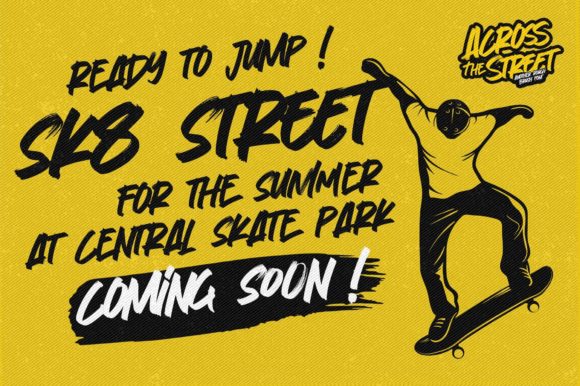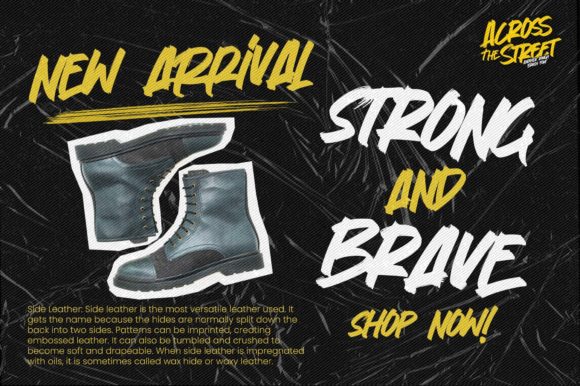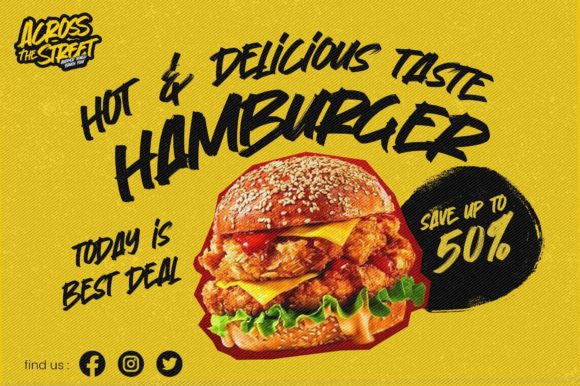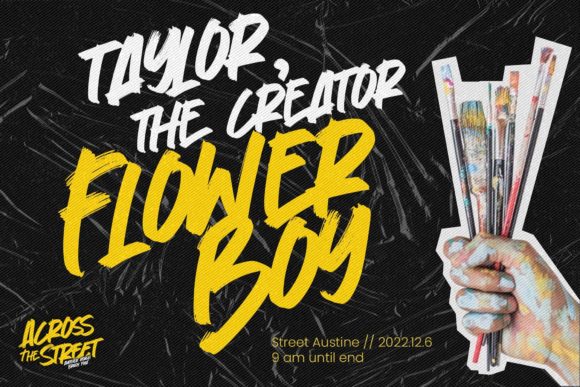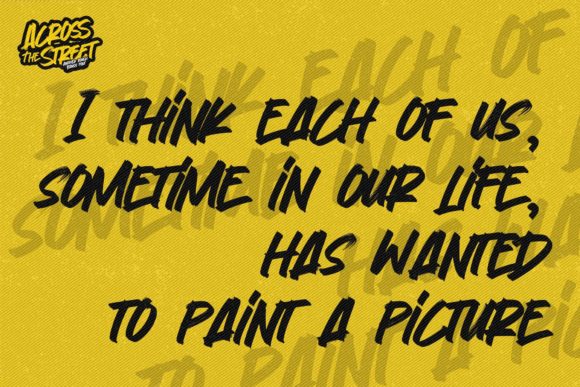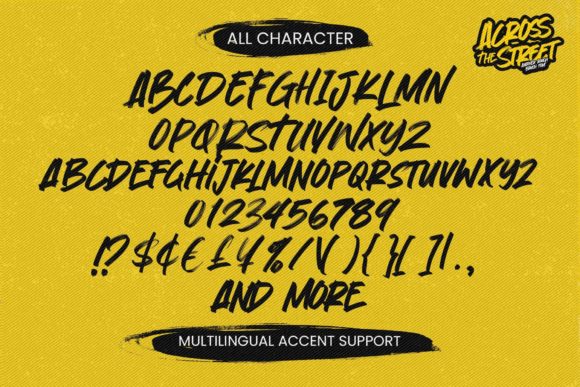
Discover the Charming Authenticity of Across the Street Font
Are you tired of using the same old fonts in your designs? Look no further! Across The Street is an authentic display font that adds a touch of casual elegance to any text. This amazing font was created by making brush strokes on paper, scanning them, and carefully drawing them into a vector format. The result is a charming and relaxed aesthetic that will take your designs to the next level.
The Story Behind Across The Street Font
The Across The Street font has a unique story behind it. The letters were made with brush strokes on paper, giving it a natural and effortless look. The font was then scanned and carefully drawn into a vector format, preserving its authentic feel. This process gives the font a distinctive charm that is hard to find in digital fonts.
Across The Street font is perfect for designers and crafters who want to add a personal touch to their work. Its relaxed aesthetic makes it ideal for a variety of design projects, including:
- Homeware designs: Add a touch of warmth and coziness to your homeware designs with this charming font.
- Branding projects: Create a unique and memorable brand identity with Across The Street font.
- Logos: Make your logo stand out with this eye-catching font.
- Quotes: Add a personal touch to your quotes and sayings with this beautiful font.
- Product packaging: Give your product packaging a natural and effortless look with Across The Street font.
- Invitations: Create beautiful and unique invitations for special occasions.
- Book covers: Add a touch of elegance to your book covers with this charming font.
- Craft designs: Perfect for crafters who want to add a personal touch to their designs.
- Photography overlays: Add a touch of warmth and coziness to your photography overlays.
- Signs: Create eye-catching signs for your business or home.
- Window art: Add a touch of elegance to your window art with Across The Street font.
- Scrapbooking: Perfect for scrapbookers who want to add a personal touch to their designs.
- Tags: Create beautiful and unique tags for your gifts or products.
Why Choose Across The Street Font?
There are many reasons why you should choose Across The Street font for your design projects. Here are a few:
- Unique and authentic look: The font has a distinctive charm that is hard to find in digital fonts.
- Versatile: Perfect for a variety of design projects, from homeware designs to branding projects.
- High-quality: The font is carefully crafted to ensure high-quality results.
Tips for Using Across The Street Font
Here are a few tips for using Across The Street font in your design projects:
- Use it sparingly: Because of its unique look, it’s best to use Across The Street font sparingly to avoid overwhelming your design.
- Pair it with other fonts: Experiment with pairing Across The Street font with other fonts to create a unique look.
- Adjust the size and color: Adjust the size and color of the font to fit your design needs.
Across The Street font is a charming and authentic display font that adds a touch of elegance to any text. Its unique story and relaxed aesthetic make it perfect for designers and crafters who want to add a personal touch to their work. With its versatility, ease of use, and high-quality results, Across The Street font is a great addition to any design project.